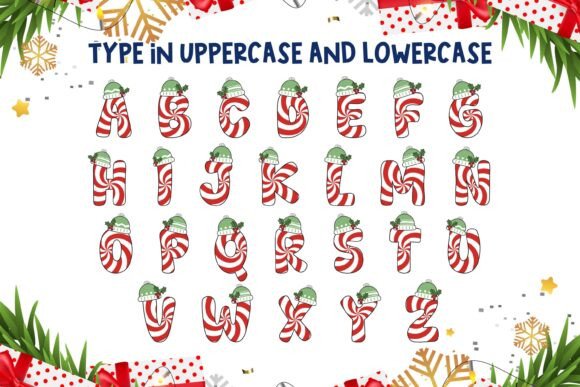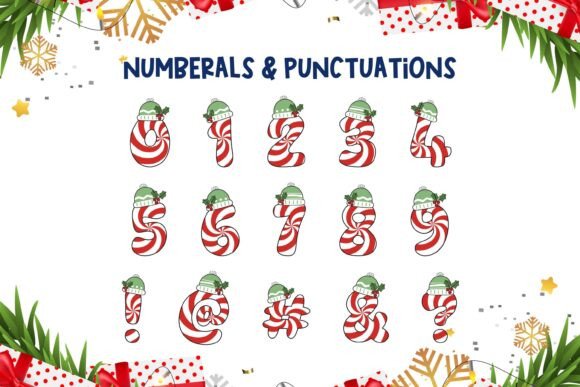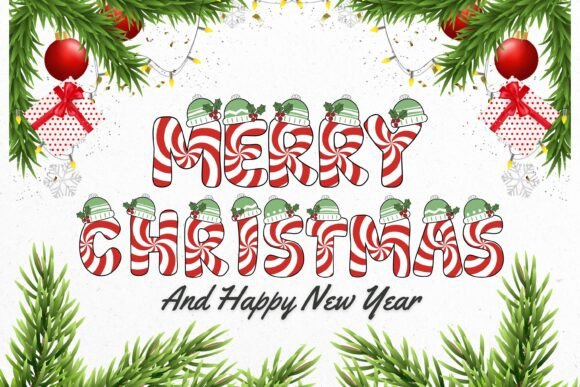
Christmas Candy Cane Font – Free Download
Introduction to Christmas Candy Cane Font
Introducing Christmas Candy Cane, a vivid and playful color font that brings a touch of enchantment to every Christmas-themed design.
Its captivating character effortlessly melds with t-shirt designs, digital imprints, craft creations, decorative cards, and extensive projects Christmas Candy Cane arrives in three variations: OTF, TTF, and WOFF color font, ensuring complete convenience and flexibility.
Key Features of Christmas Candy Cane Font